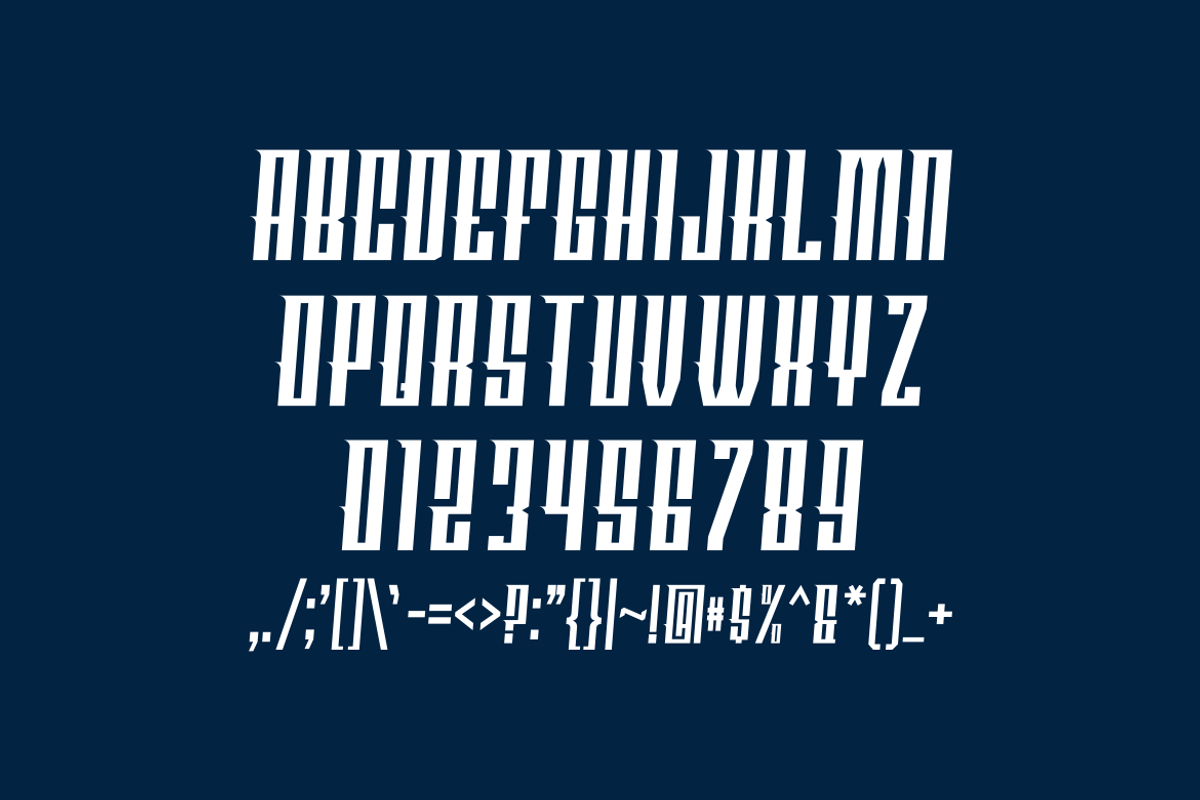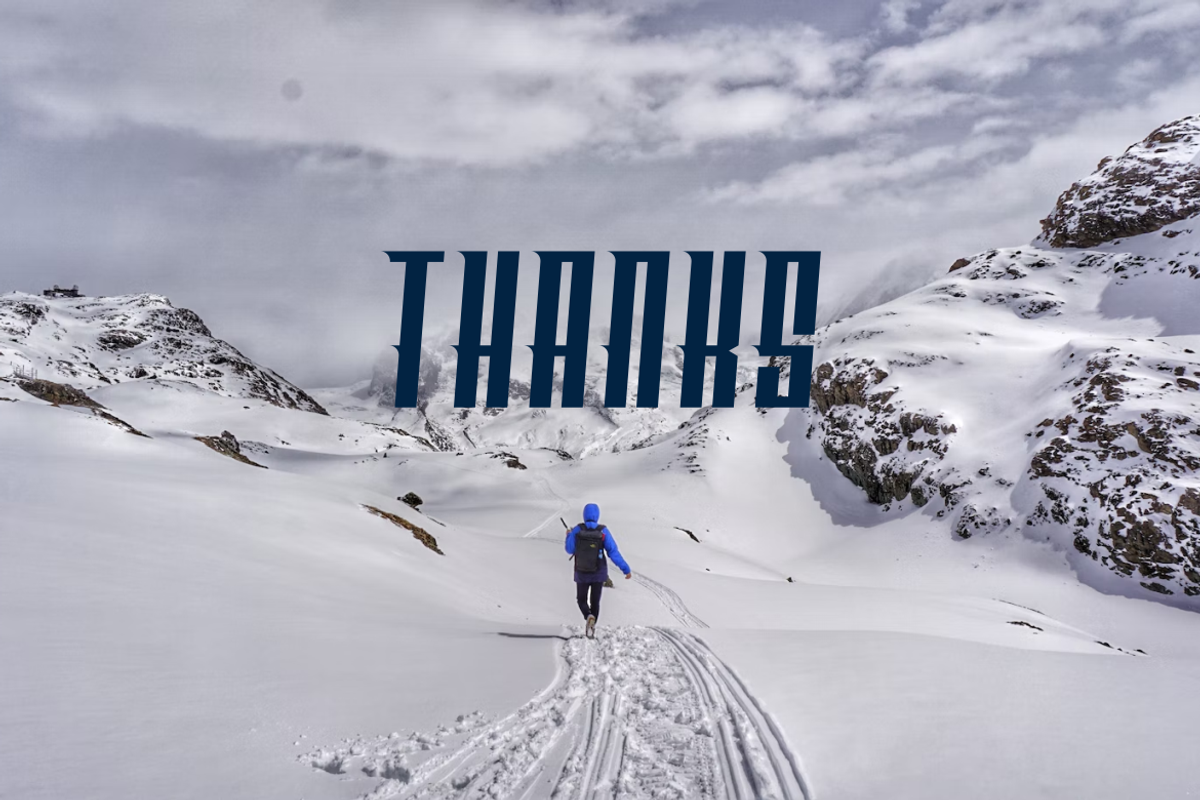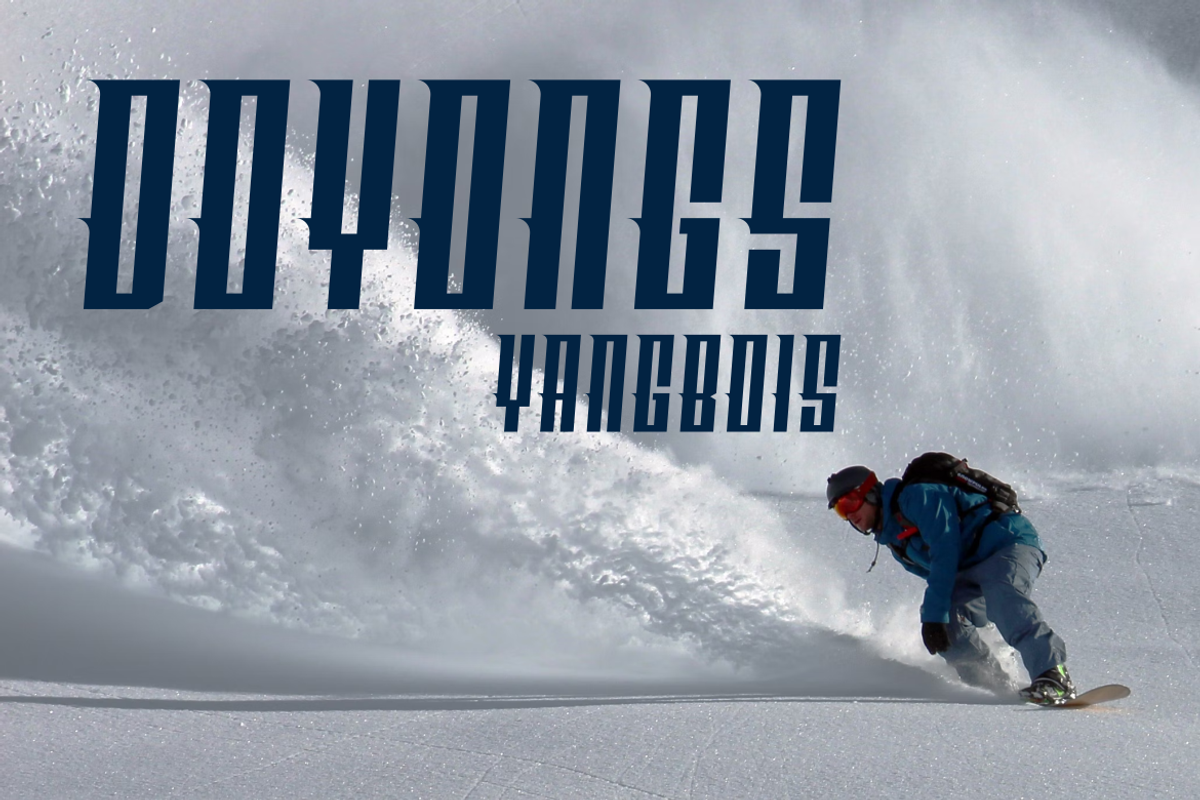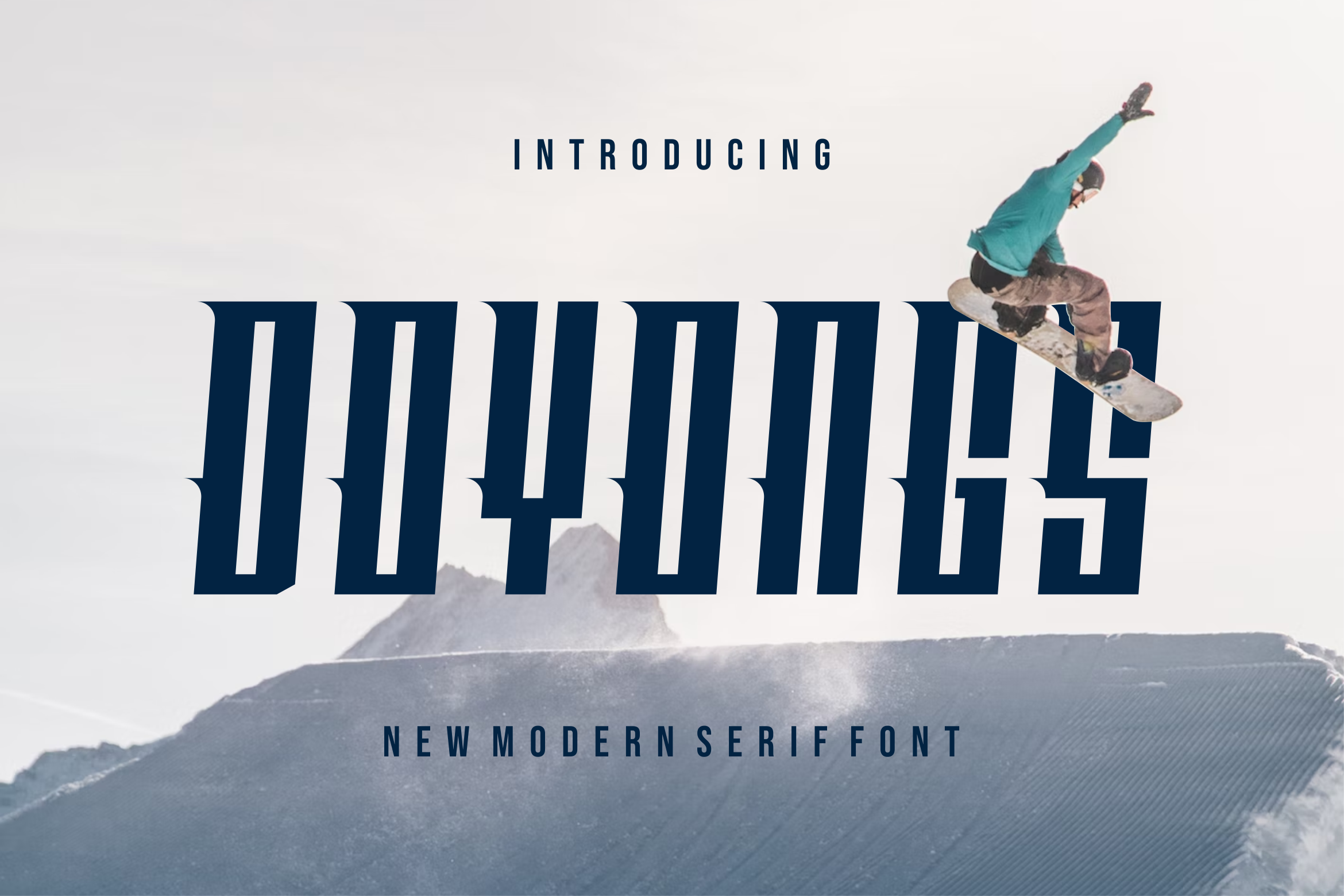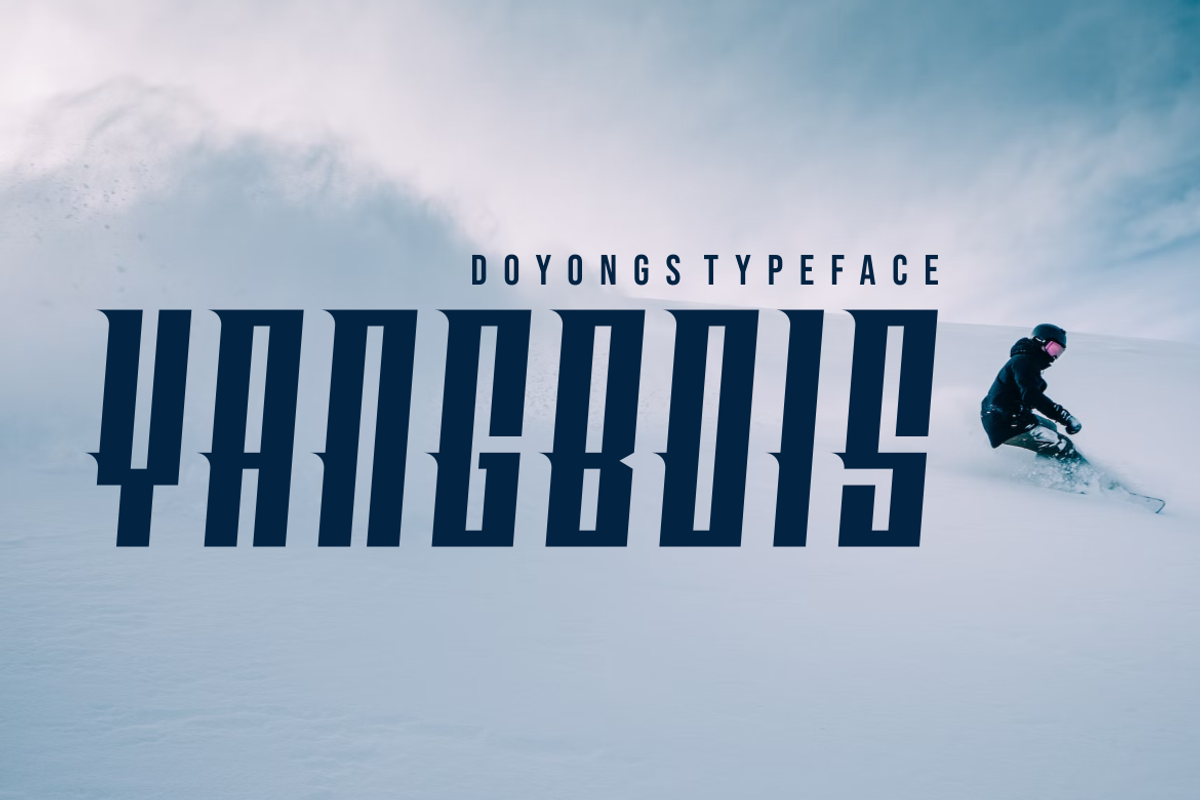
Doyongs Font
Introducing our new product Doyongs Font - Modern Font
Doyongs Font - Modern Font is a bold and authentic display font. The font is suitable for any branding project like logo, esport, and many more. outstanding in a wide range of contexts.